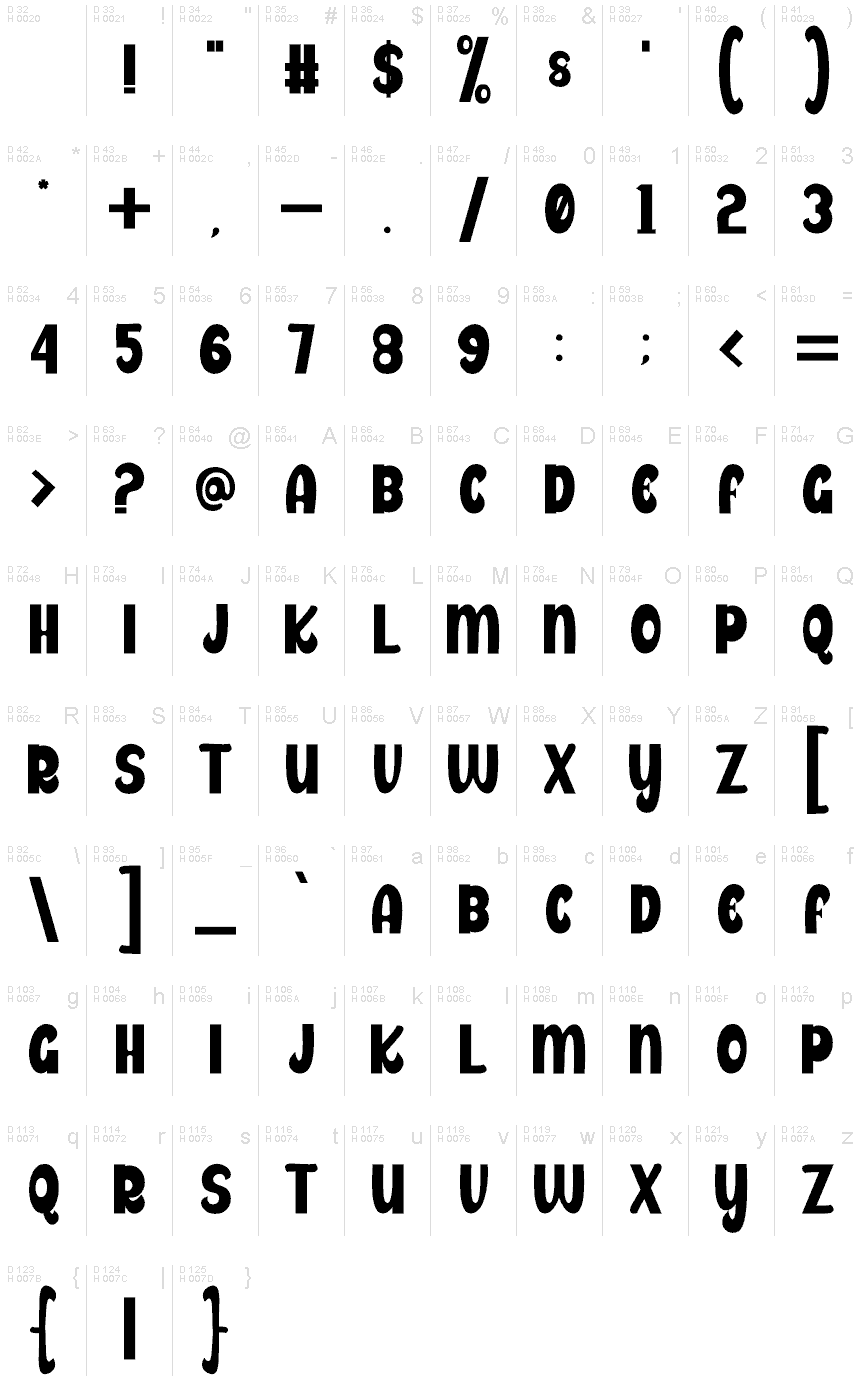
Broder
Broder font by Skiiller Studio is a bold, condensed display typeface with retro and geometric influences. Rounded and expressive, it has a modern touch along with a bold visual presence added to its letters. It can be used in contemporary applications such as branding, headlines, and more visual creatives.